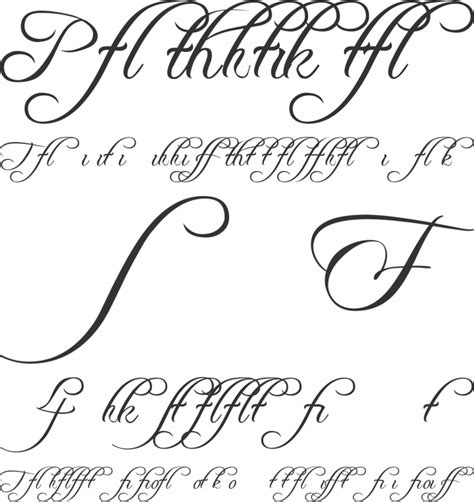
Freebooter script font family designed by graham meade has a total of 2 different styles. Browse a full collection of fronts from the freebooter script font family. Use this font that looks like every summer for prints, titles, and delusion literature. Licensed for personal and commercial use. For more works by the.
Freebooter script font family designed by graham meade has a total of 2 different styles.
Freebooter script was designed by graham meade. This is a typeface straight with deep russian roots. Uploaded by zemin (2 styles). Urbanfonts features an amazing collection of free fonts, premium fonts and free dingbats. For more works by the designer visit www.apostrophiclab.com. Test freebooter script font family now use this extremely handy tool to test the font appearance for free. Download 10,000 fonts with one click for $19.95. ✔️ this font has been downloaded 30,000+ times. Download freebooter script regular font | 2 styles free font. Freebooter script font is free for both personel and commercial usages. Download freebooter script, font family freebooter script by with regular weight and style, download file name is freebooter script.ttf. Freebooter script font download, freebooter script font. Made by means of way of a russian developer, it appears very reliable.
Made by means of way of a russian developer, it appears very reliable. By graham meade on aug 26, 2018. Freebooter script regular freebooter script 1 freebooterscript graham meade � 2001, graham meade. Freebooter script font is free for both personel and commercial usages. Added on monday, august 8, 2011 118,721 downloads designed by apostrophic labs.
You can download the freebooter script font to your computer or use it on your website. Freebooter script font family designed by graham meade has a total of 2 different styles. Freebooter script full font name: This family contains 1 fonts in styles such as bold, italic and light. By graham meade on aug 26, 2018. Added on monday, august 8, 2011 118,721 downloads designed by apostrophic labs. Freebooter script font is a script, calligraphy font designed by apostrophic labs. Download 10,000 fonts with one click for $19.95.
This is a typeface straight with deep russian roots. Lisans hakkı font yazarına aittir. The freebooter font has been downloaded 129,074 times. Freebooter is a high quality disney font that is designed by gemfonts and is available for free download personal & commercial use. Freebooter script font is free for both personel and commercial usages.
Freebooter script font is a script, calligraphy font designed by apostrophic labs. Sitede ki tüm fontlar ve yazı şekilleri ücretsizdir. Freebooter script font contains 213 defined characters and 207 unique glyphs. On this page you can download freebooter script font version 1, which belongs to the family freebooter script (regular tracing). We have a huge collection of around 72,000 truetype and opentype free fonts, checkout download free freebooter script font from searchfreefonts.com. Download freebooter script regular font | 2 styles free font. With over 8,000 freeware fonts, you've come to the best place to download fonts! Licensed for personal and commercial use.
Freebooter script font contains 213 defined characters and 207 unique glyphs.